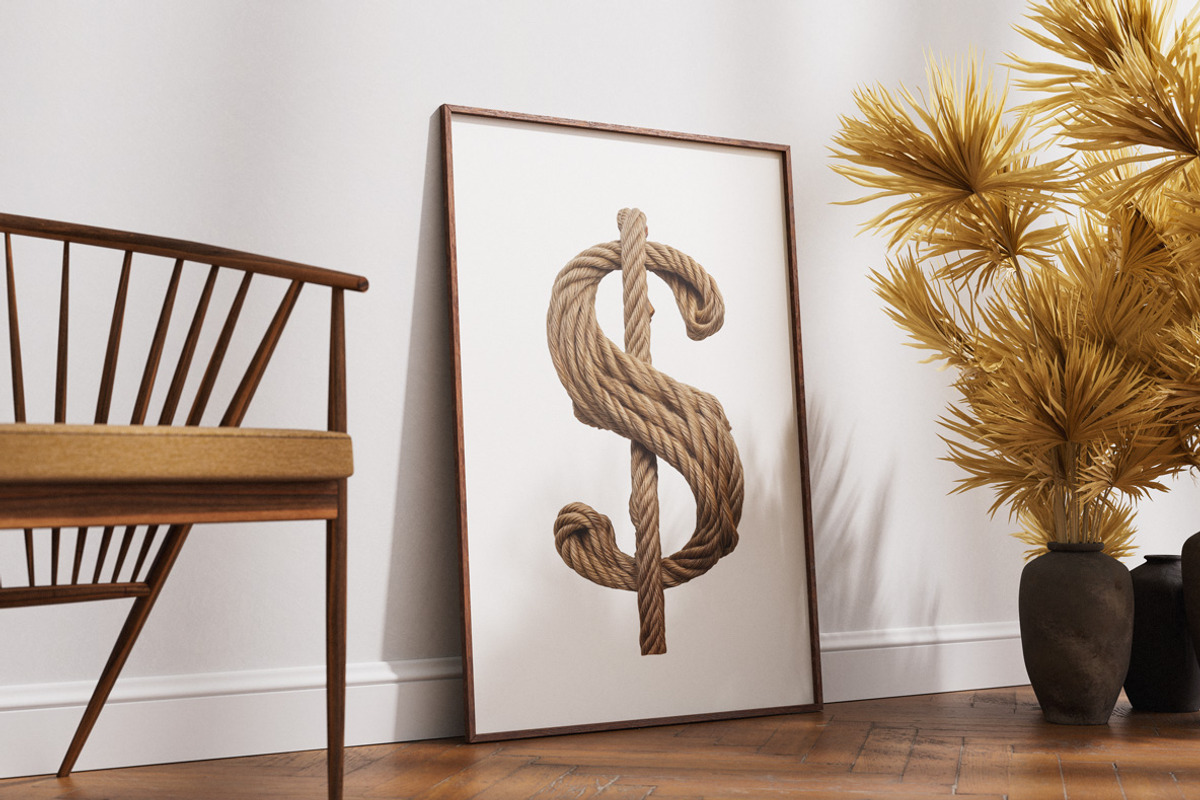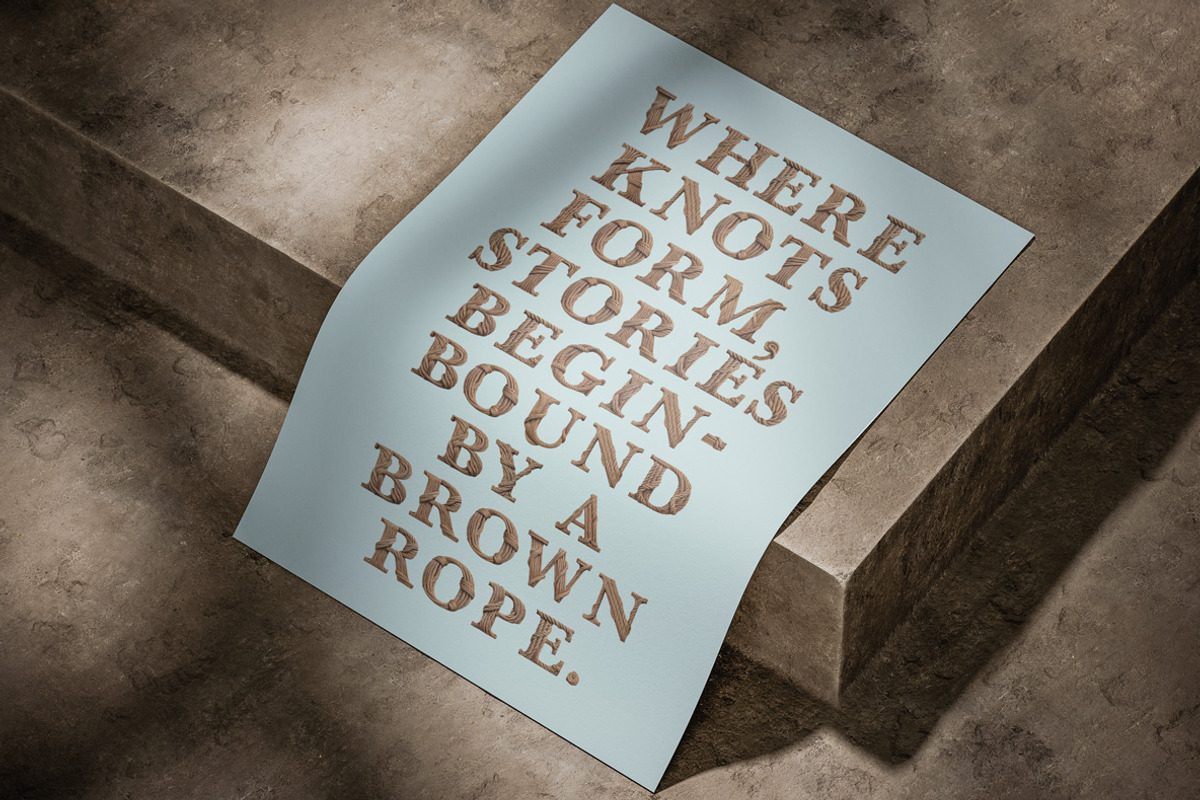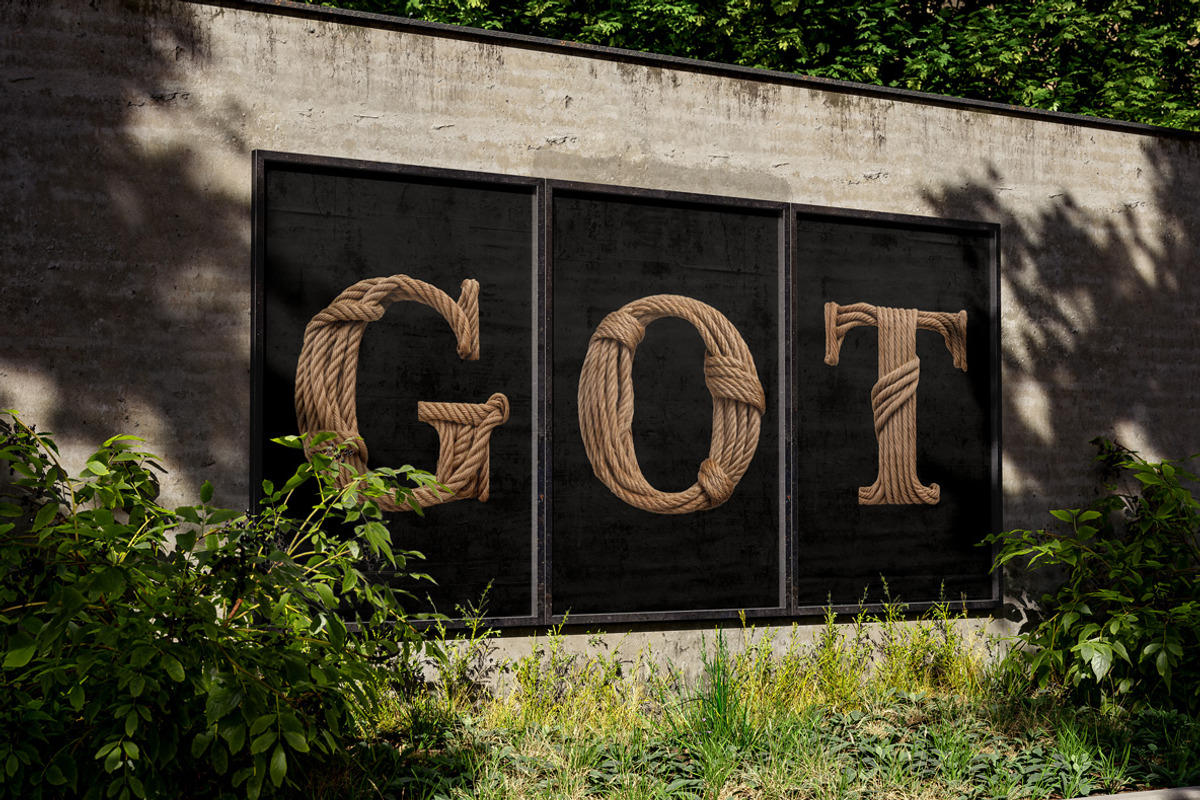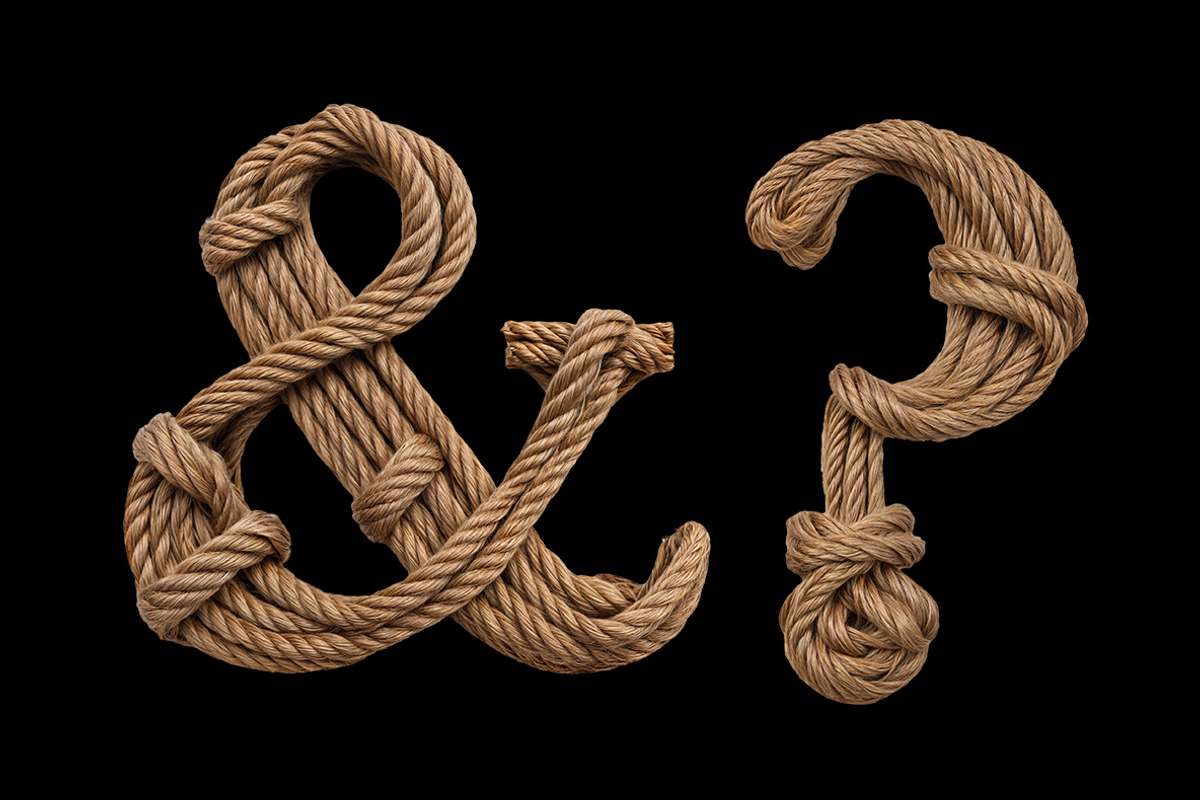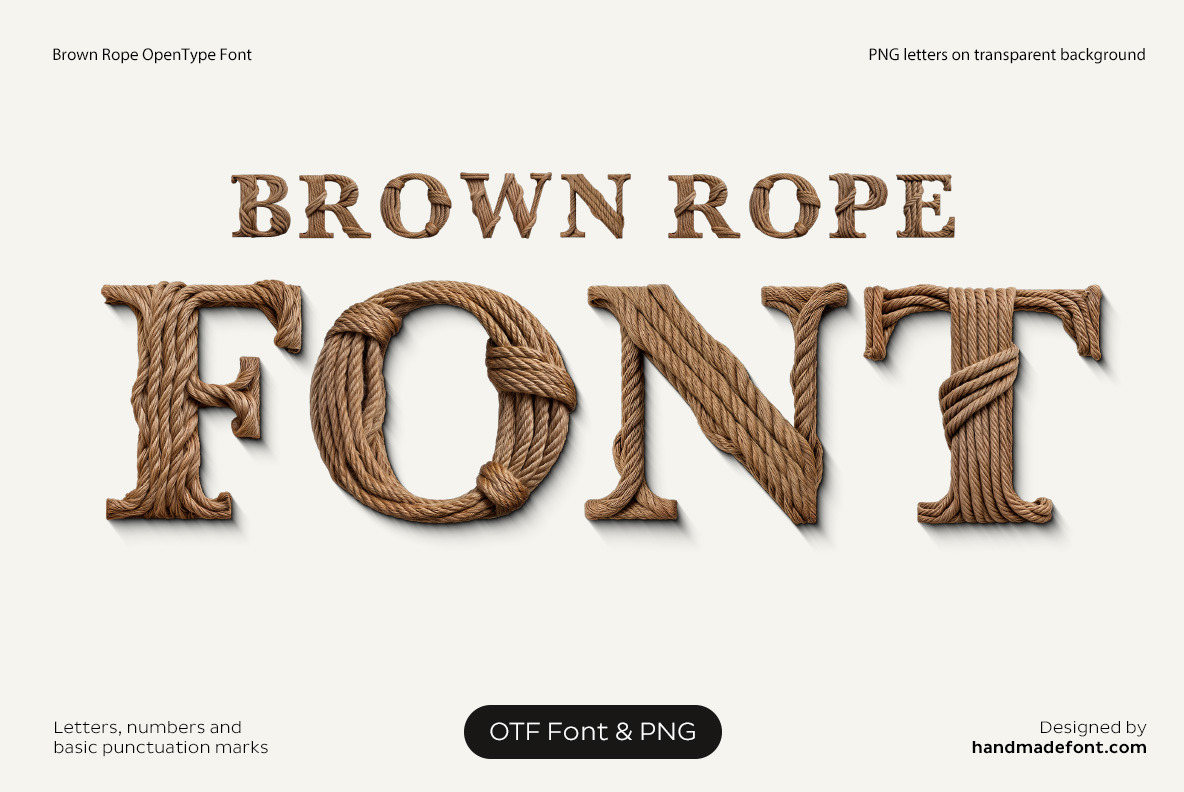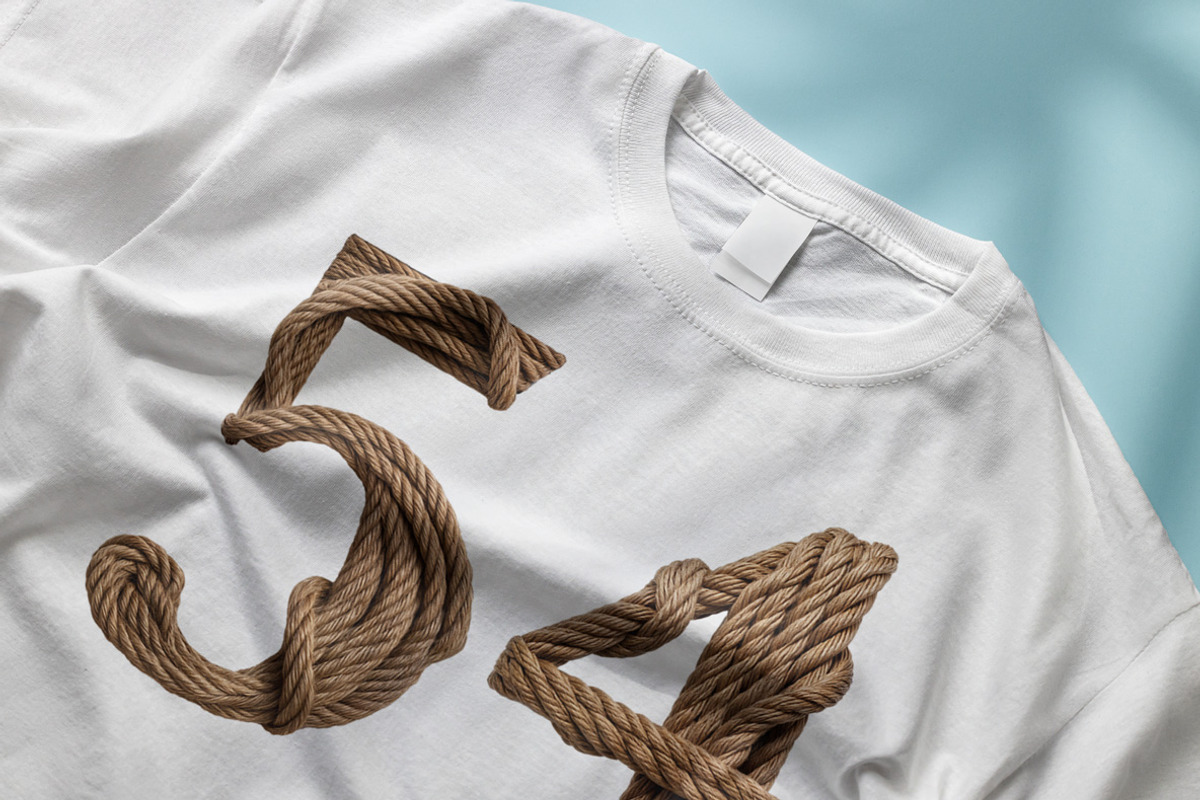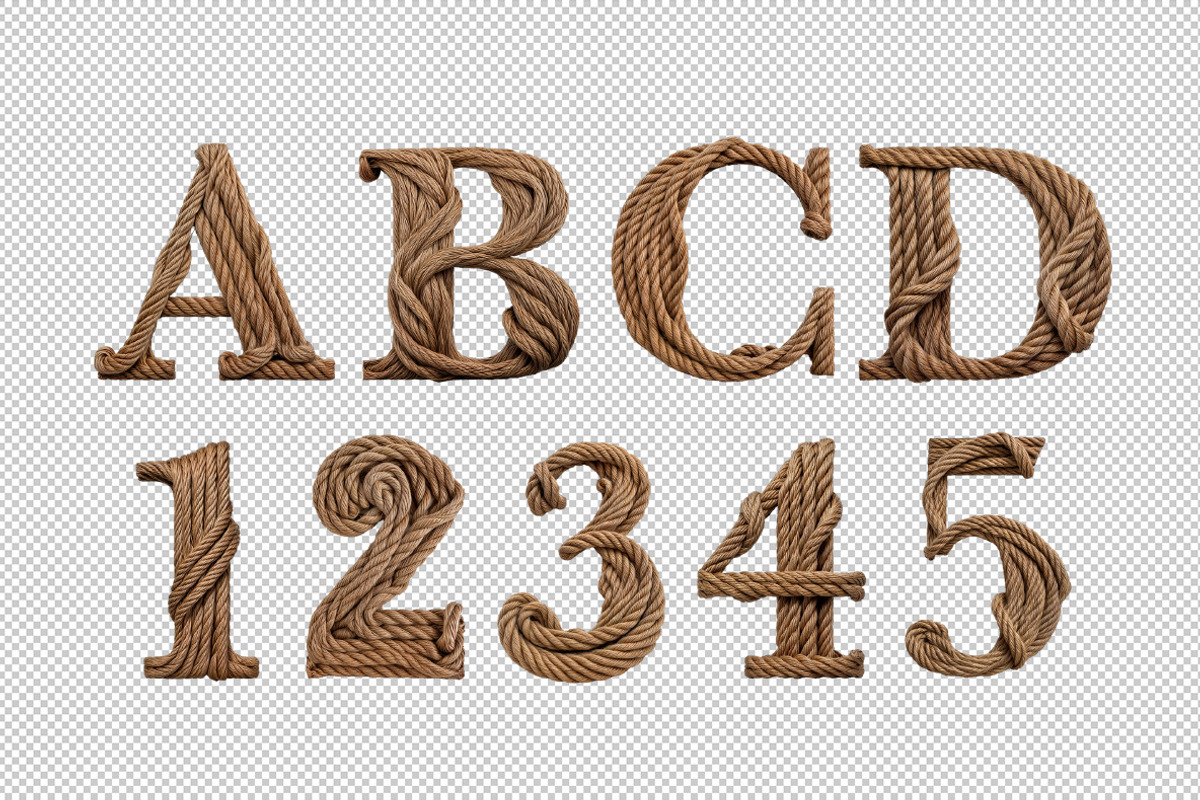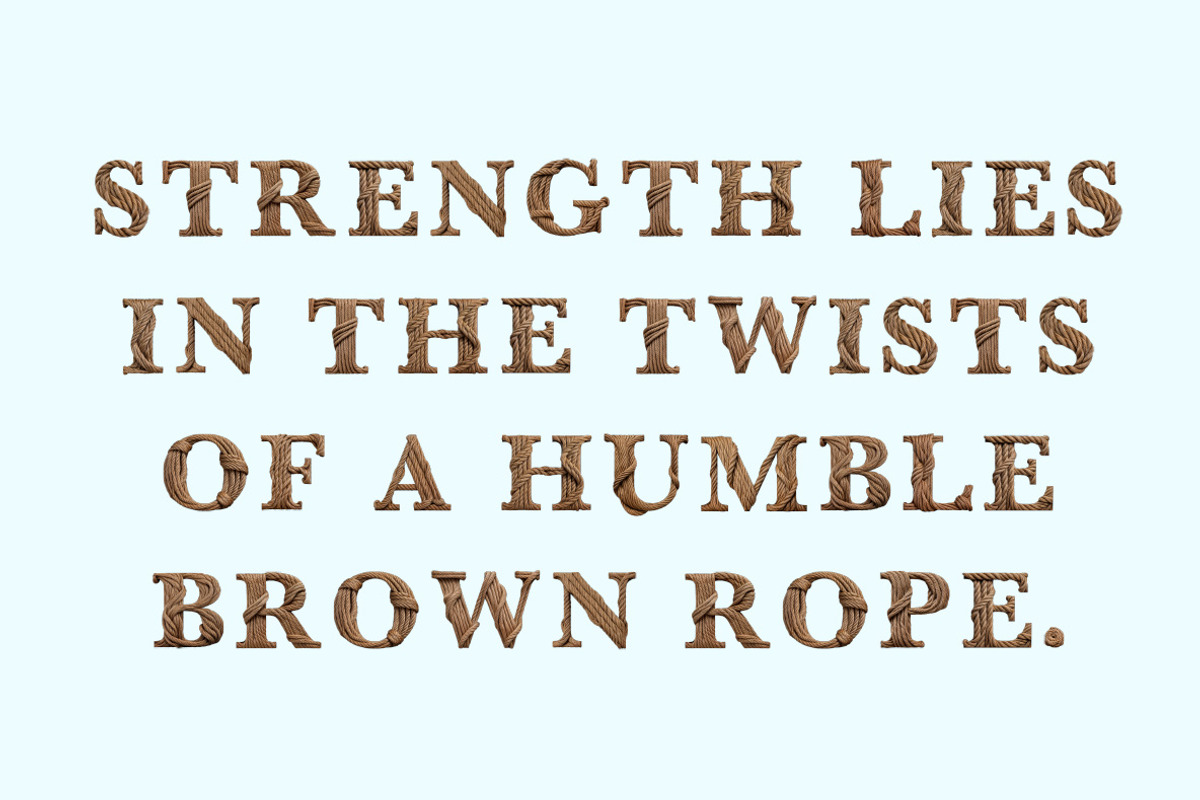
Brown Rope Font
Craft a captivating impression with the Brown Rope Font, a masterpiece of rope typography that exudes rustic charm and natural aesthetics. Each letter in this rope-inspired font is meticulously crafted from thick, textured brown rope, twisted and coiled into unique, seamless forms. The intricate rope alphabet showcases elegant knots at the base, adding authenticity and detail to the design. Perfect for rustic themes, outdoor branding, or creative projects, this rope lettering brings warmth and character to any text. The Brown Rope Font blends artistry with natural elements, making it an exceptional choice for those seeking a bold yet organic statement.
- Letters : A B C D E F G H I J K L M N O P Q R S T U V W X Y Z
- Numbers : 0 1 2 3 4 5 6 7 8 9
- Others : ! ? - . ' $ € % & # @